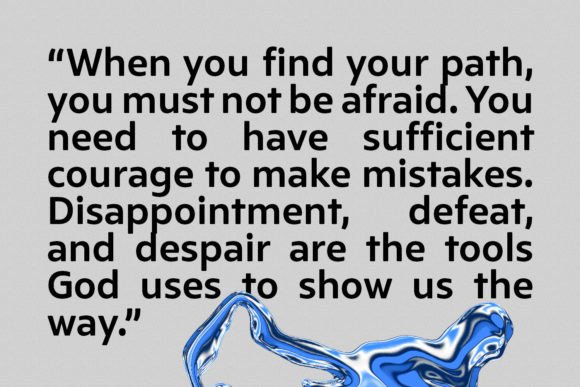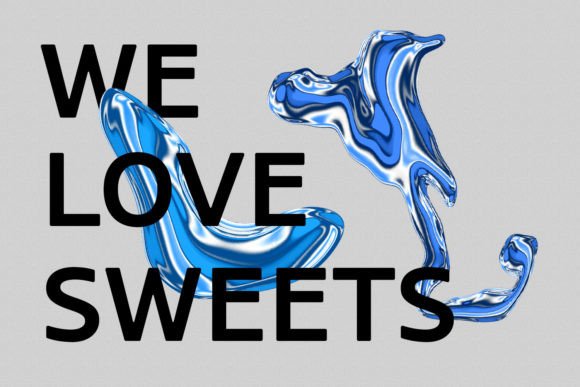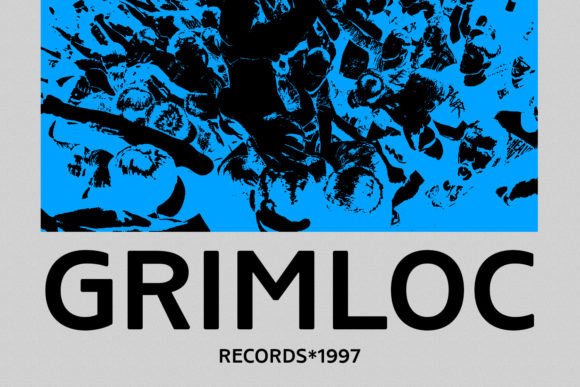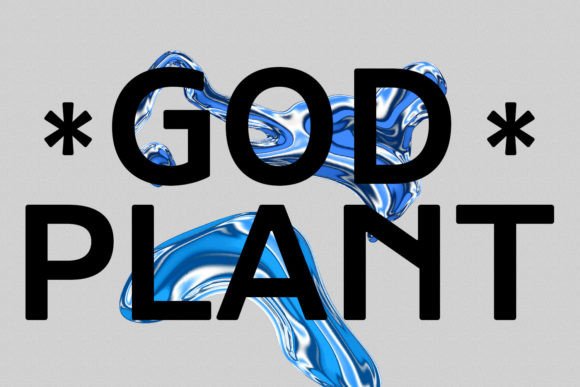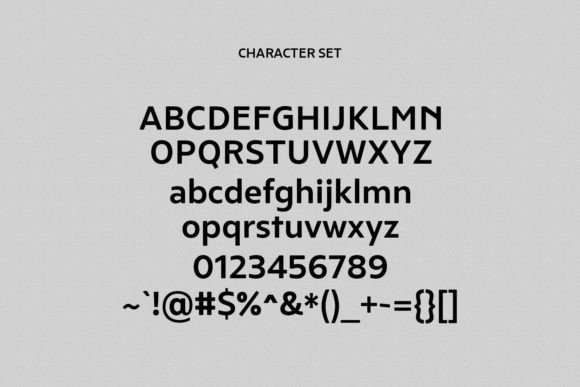
Fringes Font: A Timeless Classic for Creative Projects
Are you on the hunt for a font that exudes a sense of history and playfulness? Look no further than Fringes Font, a classic early sans serif font that’s perfect for a wide range of creative projects. With its regular stroke, fun character, and ligature and alternates, Fringes Font is sure to add a touch of personality to your designs.
A Brief History of Fringes Font
Fringes Font is a vintage-inspired typeface that draws inspiration from the early days of sans serif fonts. Its classic design makes it an excellent choice for projects that require a sense of nostalgia or timelessness. Whether you’re working on a logo, movie title, or book cover, Fringes Font is sure to bring a touch of history to your design.
Key Features of Fringes Font
So, what makes Fringes Font so special? Here are just a few of its key features:
- Regular stroke: Fringes Font features a regular stroke that gives it a clean and classic look.
- Fun character: Despite its classic design, Fringes Font has a playful personality that’s perfect for projects that require a bit of whimsy.
- Ligature and alternates: Fringes Font includes a range of ligatures and alternates that allow you to add extra creativity to your designs.
Use Cases for Fringes Font
Fringes Font is an incredibly versatile typeface that can be used for a wide range of projects. Here are just a few ideas to get you started:
- Logo design: Fringes Font is an excellent choice for logos that require a sense of history and personality.
- Social media: Add a touch of personality to your social media posts with Fringes Font.
- Movie titles: Fringes Font is perfect for movie titles that require a sense of nostalgia or classic Hollywood glamour.
- Book titles: Use Fringes Font to add a touch of elegance and sophistication to your book titles.
- Short text and long text letters: Whether you’re working on a short text or a long text letter, Fringes Font is a great choice.
- Secondary text font: Fringes Font pairs perfectly with script or serif fonts, making it an excellent choice for secondary text.
Tips for Using Fringes Font
Here are a few tips for getting the most out of Fringes Font:
- Experiment with ligatures and alternates: Fringes Font includes a range of ligatures and alternates that can add extra creativity to your designs.
- Pair with script or serif fonts: Fringes Font pairs perfectly with script or serif fonts, making it an excellent choice for secondary text.
- Use for headlines and titles: Fringes Font is perfect for headlines and titles that require a sense of personality and history.
Fringes Font is a timeless classic that’s perfect for designers and crafters who want to add a touch of history and personality to their projects. With its regular stroke, fun character, and ligature and alternates, Fringes Font is sure to bring a sense of creativity and playfulness to your designs. Whether you’re working on a logo, movie title, or book cover, Fringes Font is an excellent choice. So why not give it a try and see what stunning work you can create with Fringes Font?
- What type of font is Fringes Font?: Fringes Font is a sans serif font with a classic, historical feel.
- What is Fringes Font good for?: Fringes Font is perfect for logo design, social media, movie titles, book titles, and short text and long text letters.